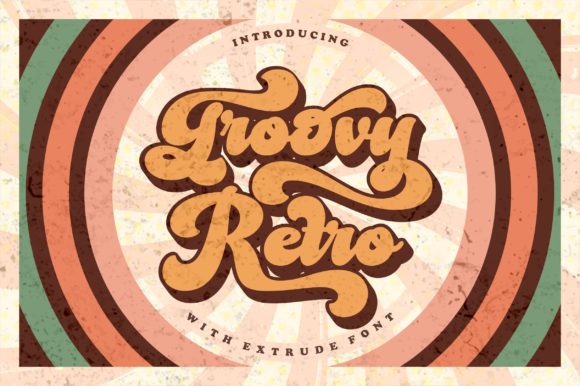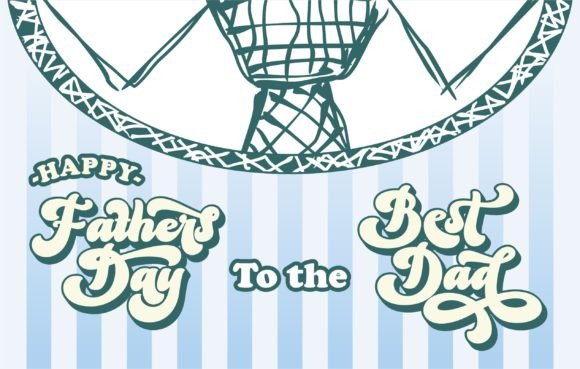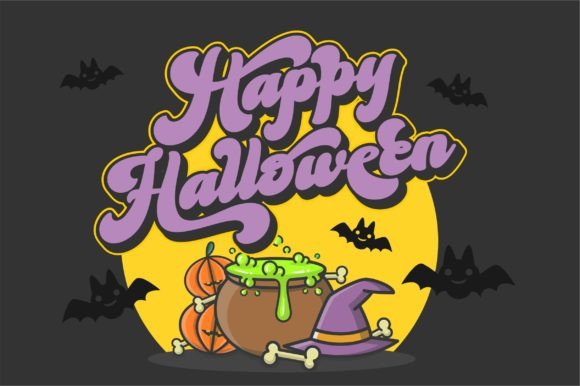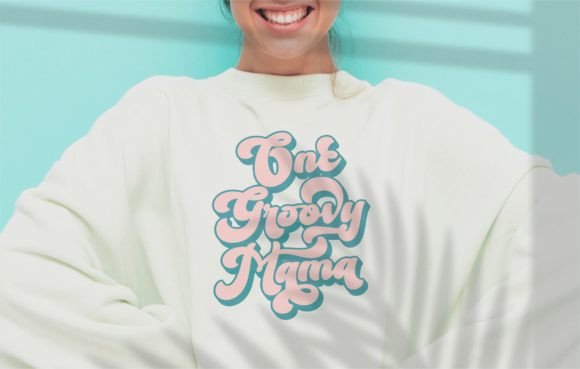
Groovy Retro Font: Master the 70s Aesthetic with this Funky Typography!
About the Groovy Retro Font
The Groovy Retro Font is here to transform your projects with its distinctive character and style. Groovy Retro feels playfully nostalgic and delivers an incredible vintage retro aesthetic. Get funky with this gorgeous font, masterfully designed to become a true favorite, and take any retro design to the next level!
It is suitable for logotype, headlines, corporate identity, brand identity, apparel industry, posters, music, movies, games, magazines, books, comics, cartoons, YouTube, Instagram, websites, or any of your creative design projects.
Groovy Retro Font Usage Examples
Groovy Retro Font Example